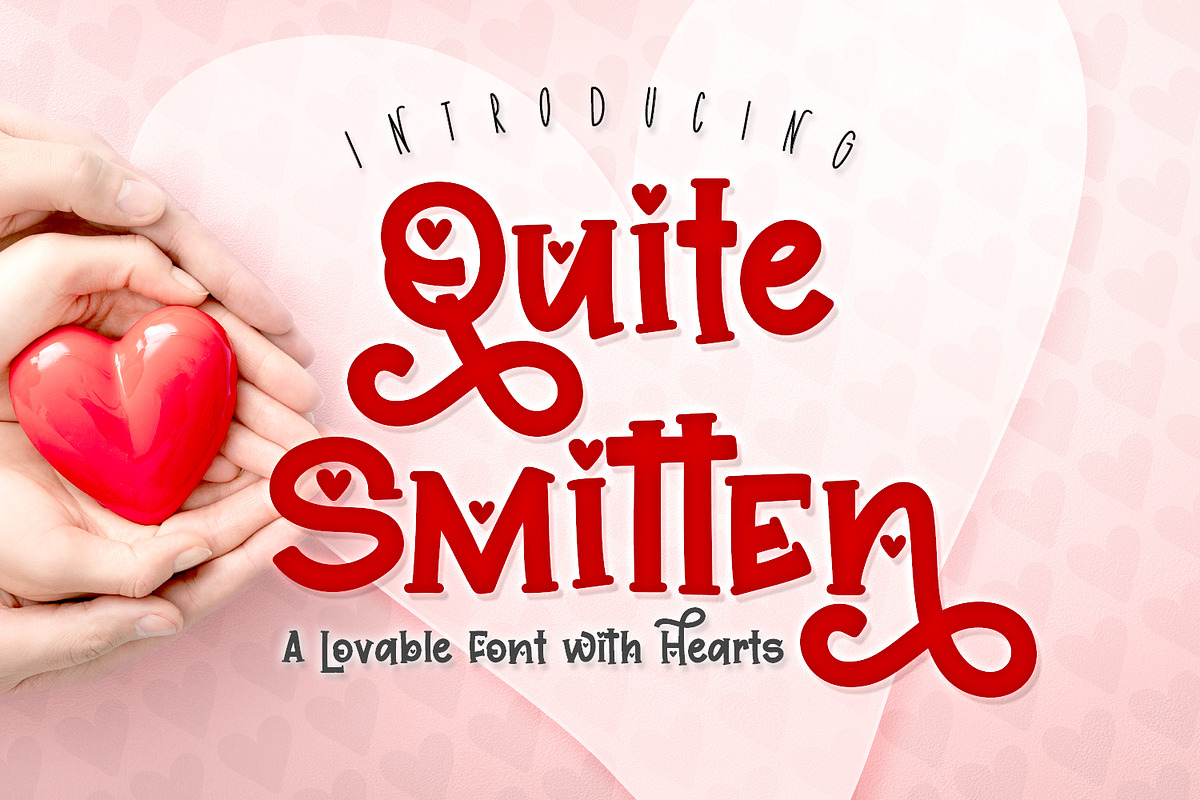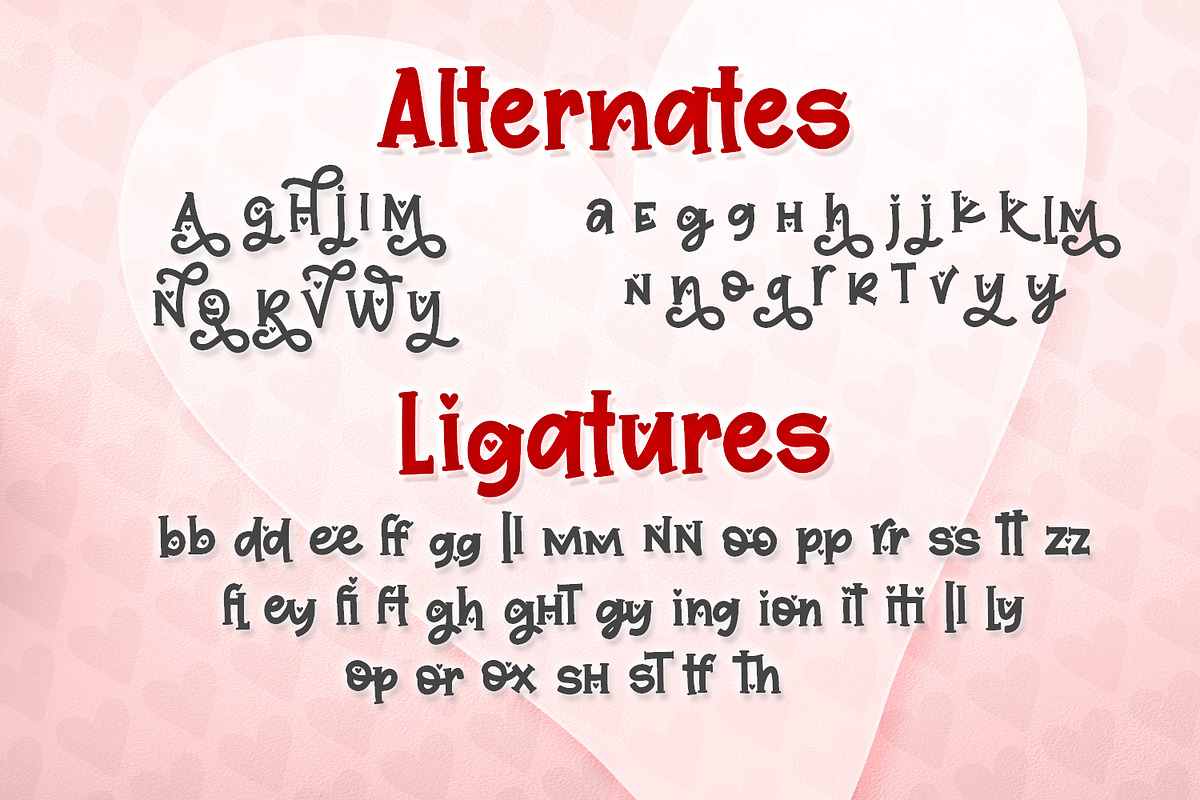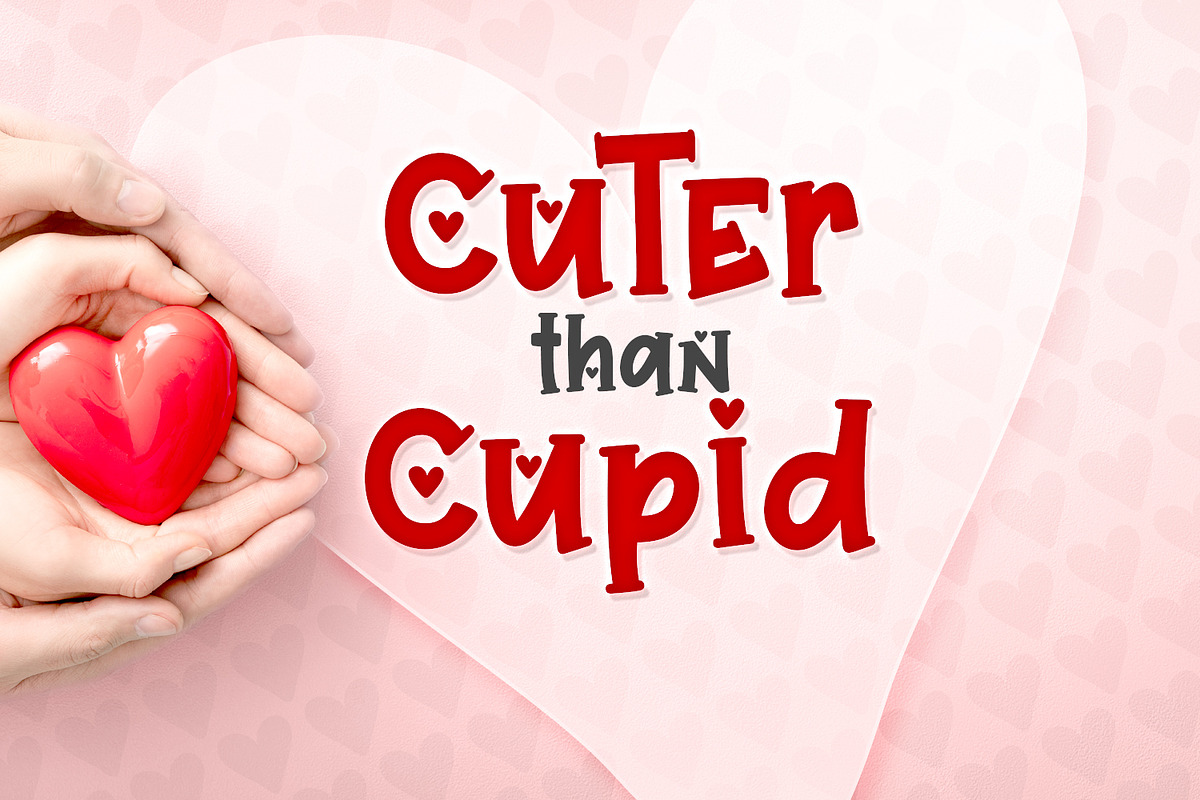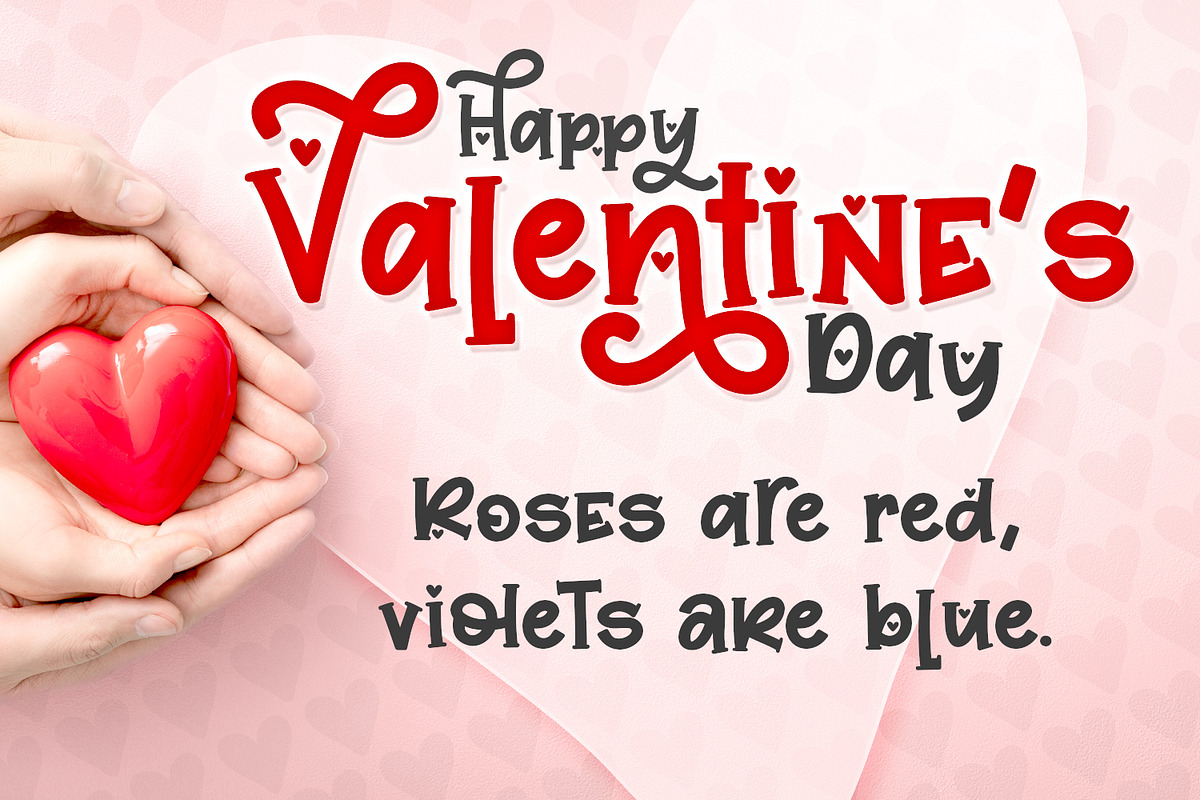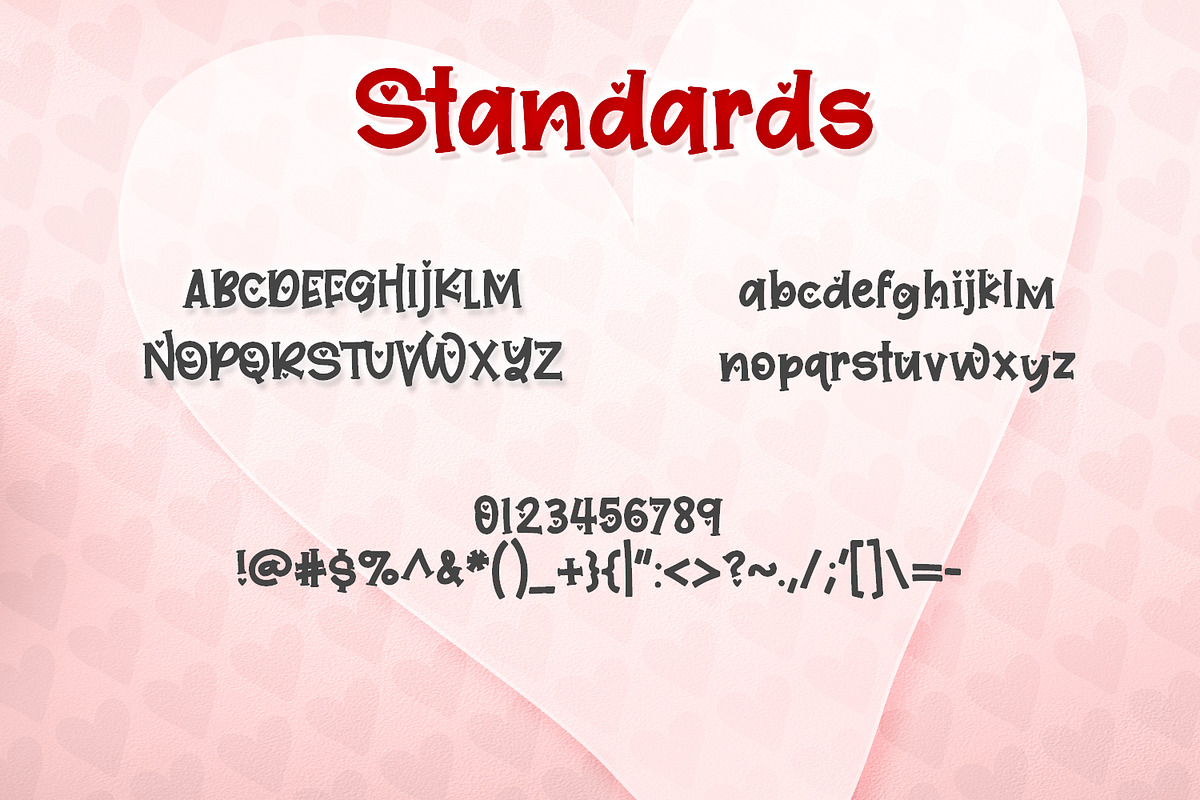
Quite Smitten Font
A lovable hand lettered font with hearts and lots of alternates!
Quite Smitten Font by A Little Smidge fits naturally into Branding, posters, packaging, typography.